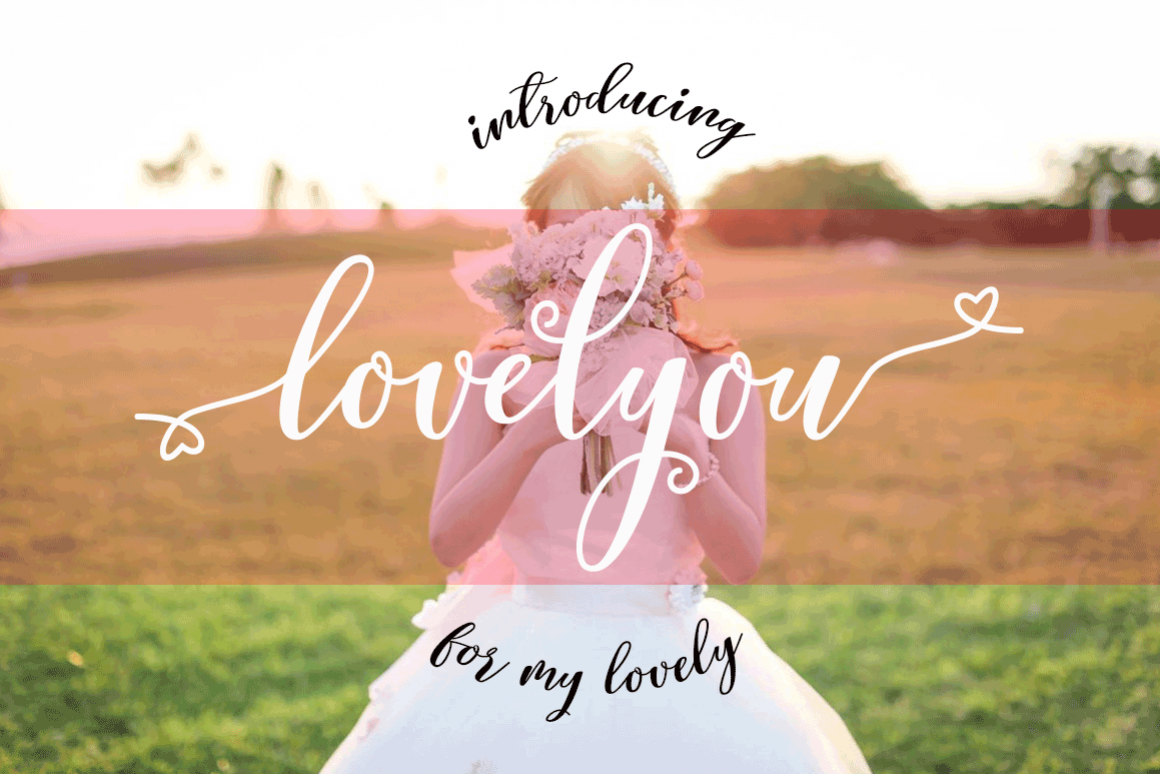
Lovelyou
INTRODUCING
Lovelyou is a font that made the hand by having the character up and down like a dancer. Lovelyou has a very unique style of calligraphy, it is very suitable for use in the work of modern design.
The Features of this fonts is:
Standart ligatures,
Discretionary ligatures,
Stylistic Alternates,
Stylistic sets,
Private Unicode Area.
Languages supported: Breton, Catalan, Czech, Danish, Estonian,French, German, Hungarian, Icelandic, Italian, Romanian, Scottish Gaelic, Slovak, Latvian, Lithuanian, Norwegian, English, Finnish, Polish, Portuguese, Slovenian, Spanish, Swedish, Turkish, Welsh. Basically, all european languages that are based on latin alphabetCan be used for various purposes.such as headings, logos, wedding invitation, t-shirt, letterhead, lable, news, posters, badges etc. To enable the OpenType Stylistic alternates, you need a program that supports OpenType features such as Adobe Illustrator CS/CC, Adobe Indesign CS/CC, Adobe Photoshop CS/CC, CorelDraw X6-X7 & Microsoft Office. a font that made the hand by having the character up and down like a dancer. Freestyle has a very unique style of calligraphy, it is very suitable for use in the work of modern design.